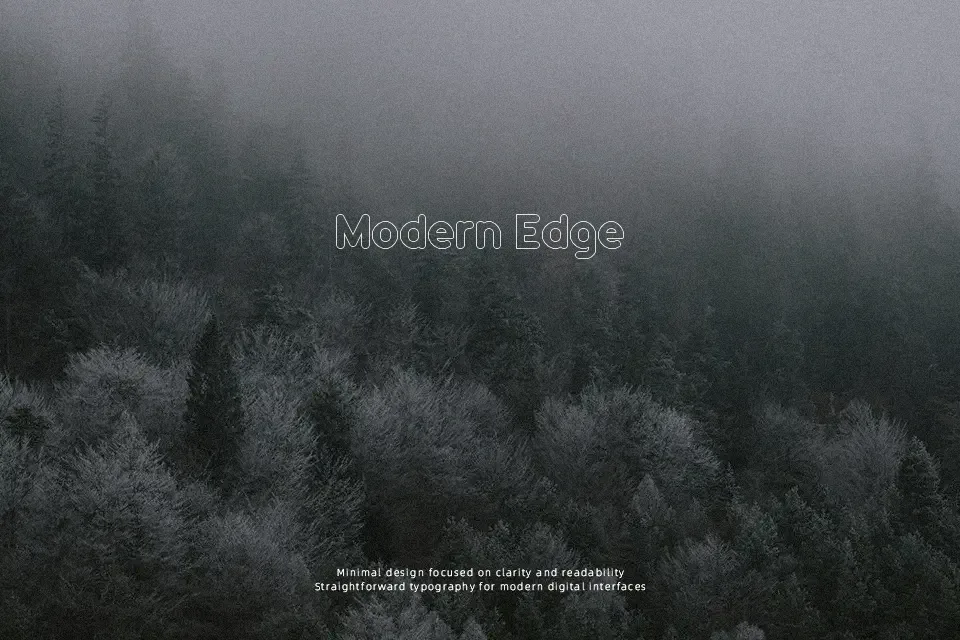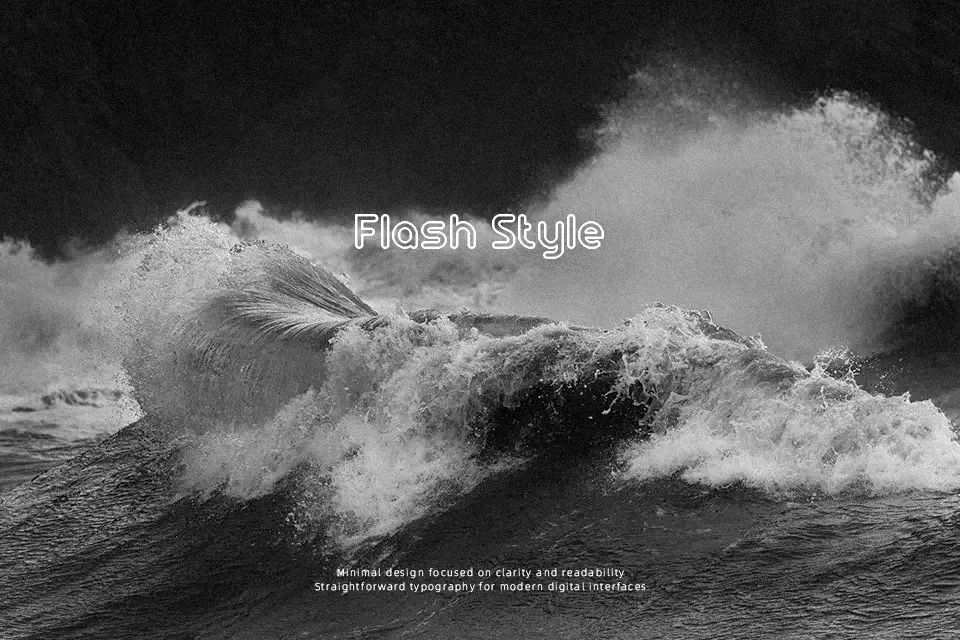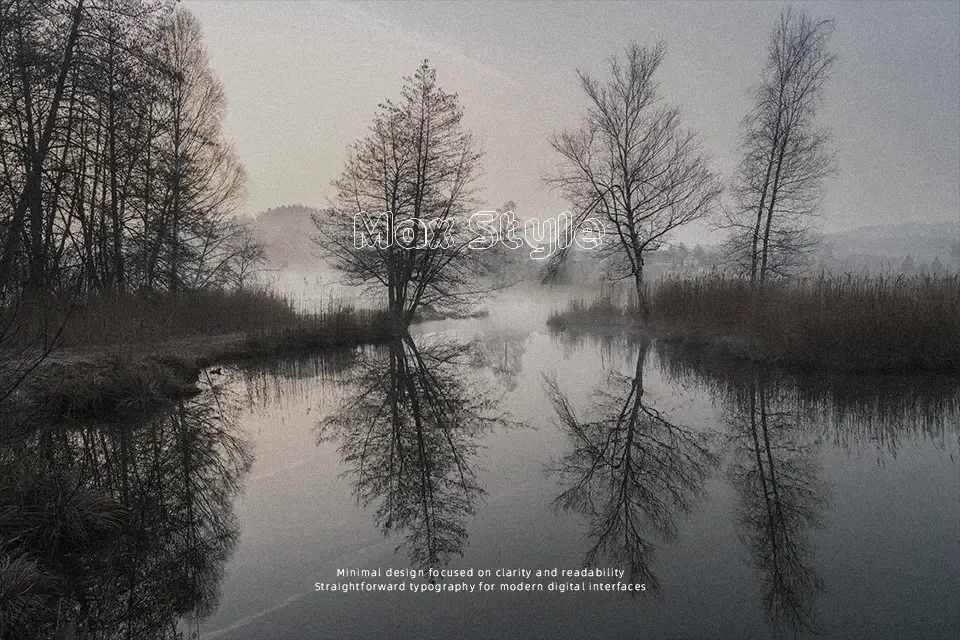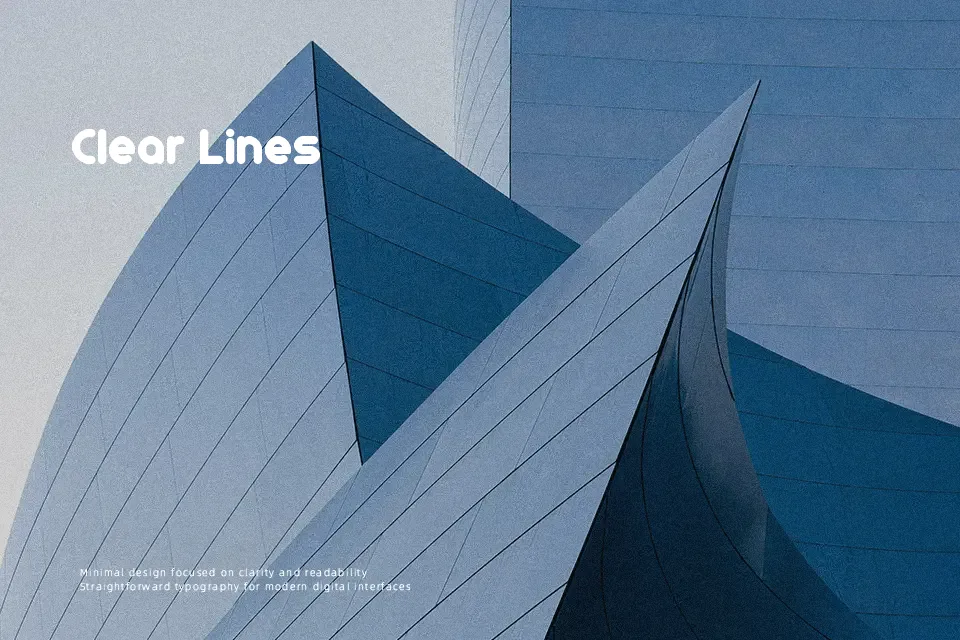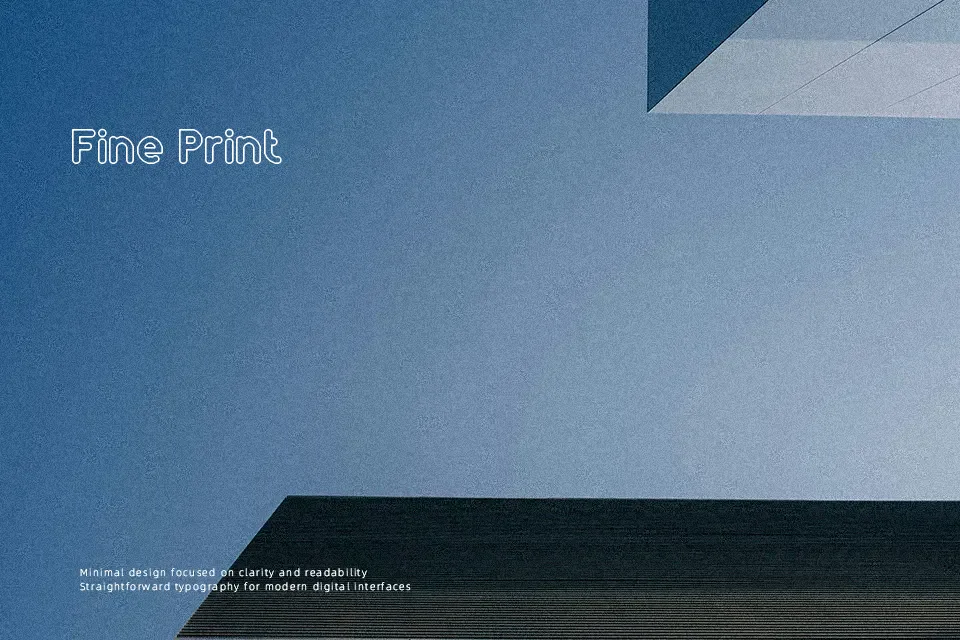
RM Playtime Font
RM Playtime Font is built around a heavy, geometric structure designed to support striking superimposed layering effects. The thick, uniform strokes and spacious proportions give the characters a strong, commanding presence that dominates the page. Because the letterforms are built for impact, the spacing helps maintain clarity in larger headlines and energetic display settings. It performs exceptionally well in retro gaming logos, vibrant event posters, and children’s packaging. However, the dense forms and high decorative complexity significantly reduce comfort during extended reading. The typeface becomes heavy and crowded at smaller sizes, making it entirely unsuitable for long paragraphs or interface body text.
retro event posters, children’s product packaging, gaming team logos, vibrant headline graphics
long paragraph text, small interface labels, dense editorial layouts, corporate body copy